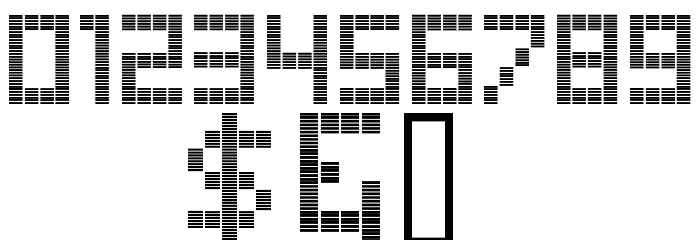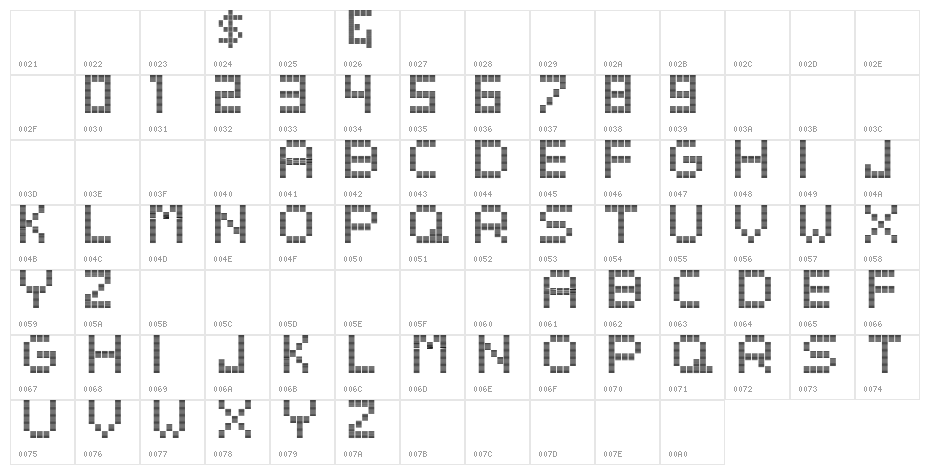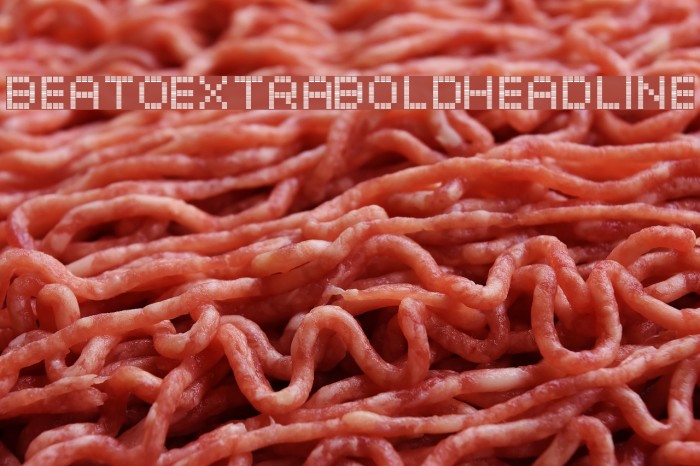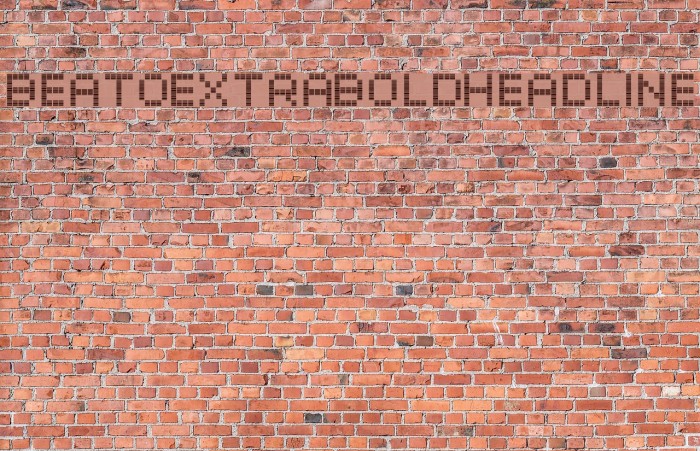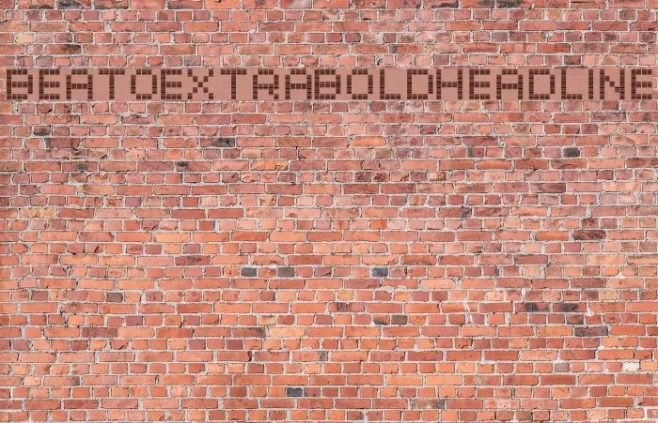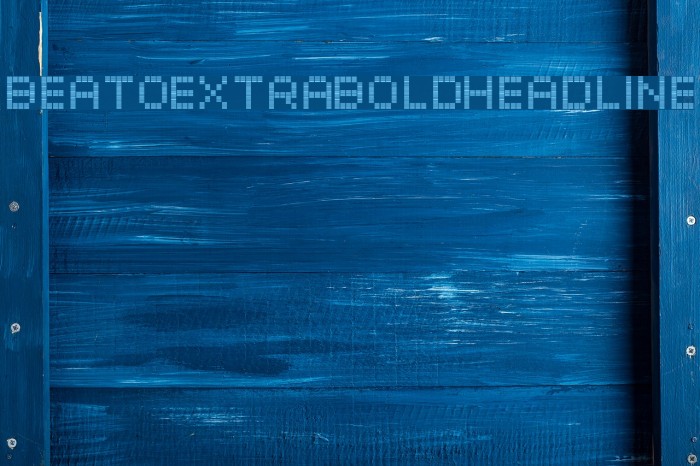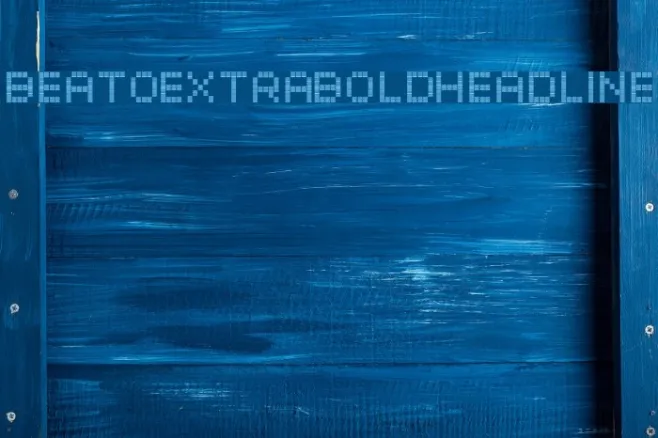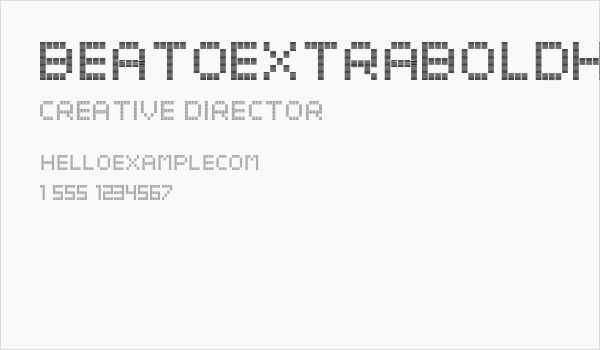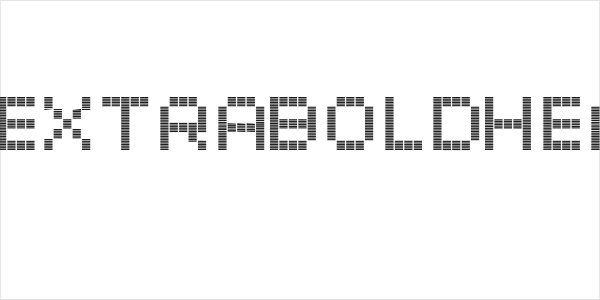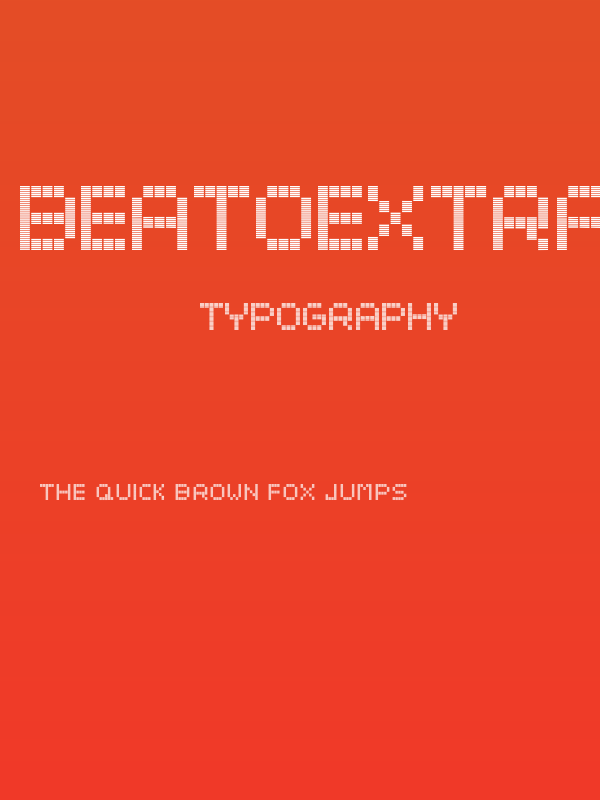
Beato-ExtraBoldHeadline Font
This font features a distinctive digital or pixelated style, reminiscent of early computer displays or retro video games. Each character is constructed from a series of small, uniform blocks, creating a grid-like appearance. The uppercase and lowercase letters maintain a consistent height, contributing to a cohesive visual flow. Numbers and special characters are designed with the same blocky aesthetic, ensuring uniformity across all glyphs. The font's boldness enhances its visibility, making it suitable for attention-grabbing headlines or display purposes. Its geometric structure and lack of curves give it a modern, technical feel, while the pixelated design adds a nostalgic touch.
| Use Case | Headlines, Logos, Display text |
| Proposed Projects | Ideal for retro-themed designs, video game graphics, digital art projects, and technology-related branding. |